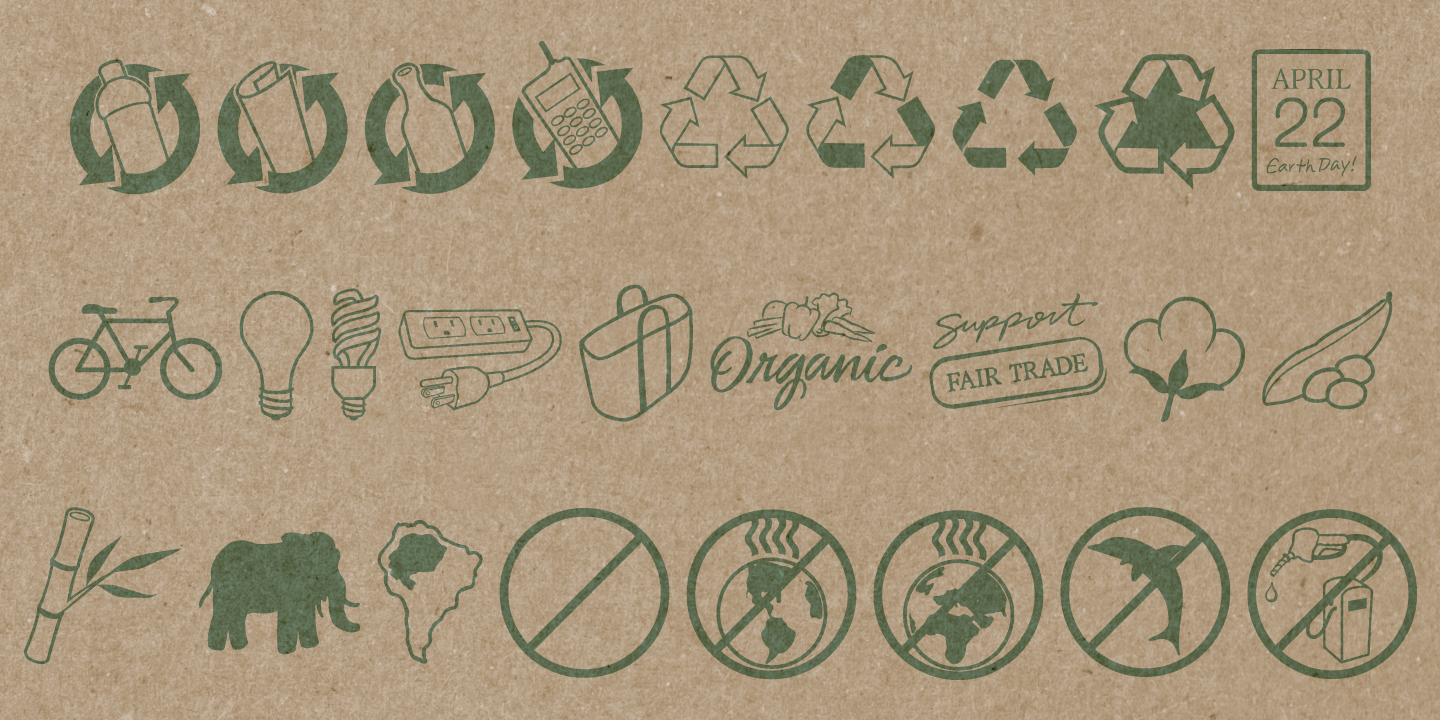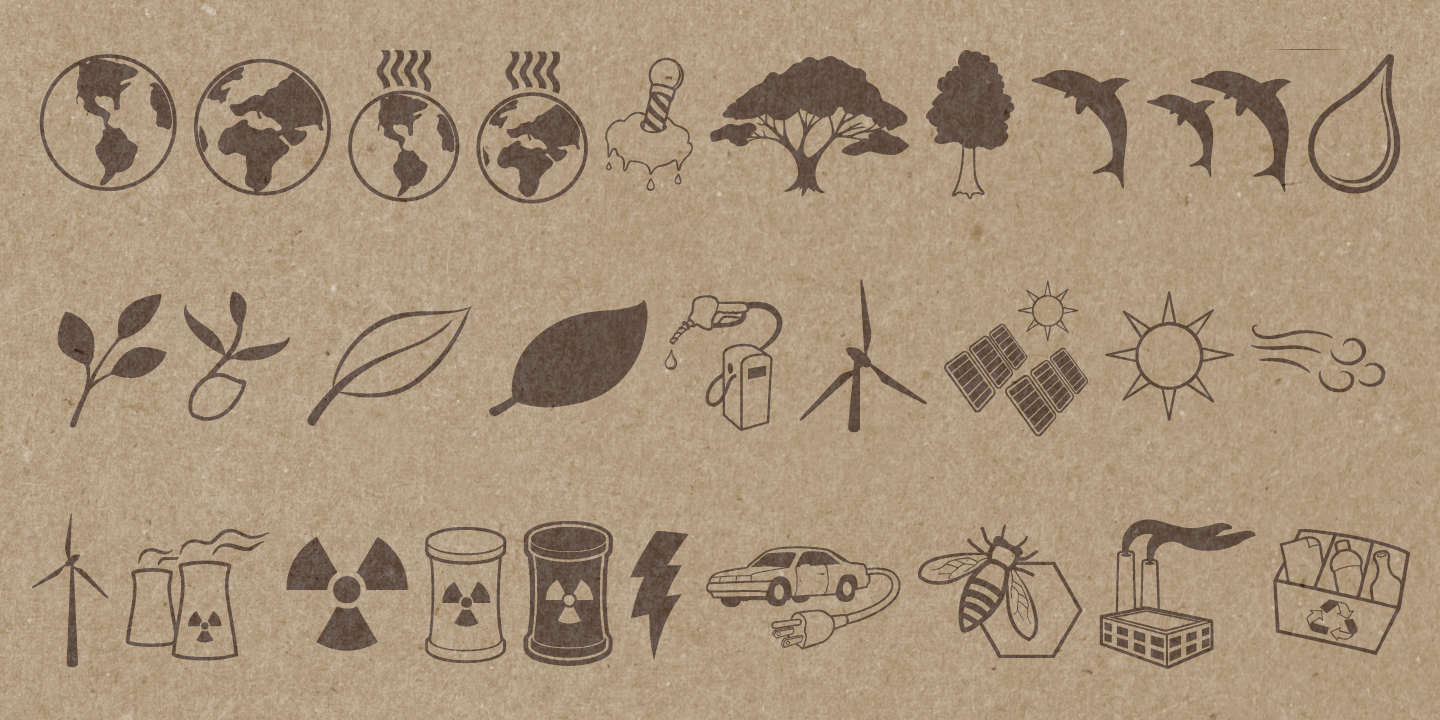
Save Her
About Save Her
Save Her showcases many enviromental issues that we are facing today. Included in this dynamic clipart font are such topics as: global warming, green energy sources, organic produce, recycling, going green, fair trade, etc. Contains a total of 52 pieces.…